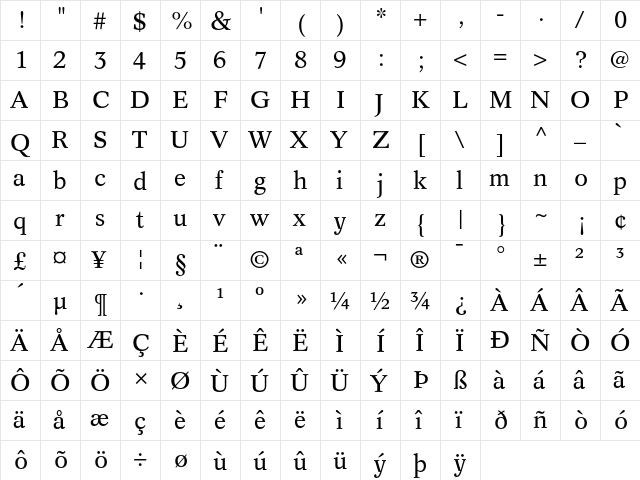
Concorde Regular
Design Context for Concorde Typeface
Concorde offers clean, dependable letterforms without strong stylistic allegiance, making it a practical choice for designers who need flexibility.
Pro Tip: Pair Concorde with a font of contrasting weight or personality to build a more expressive typographic hierarchy.